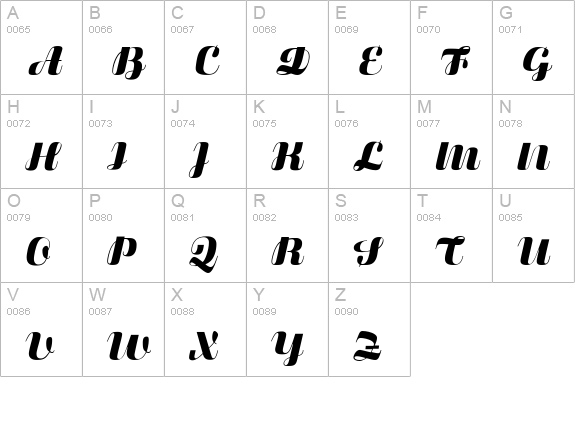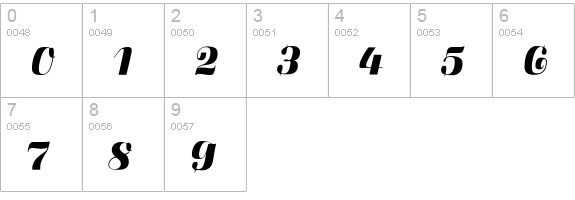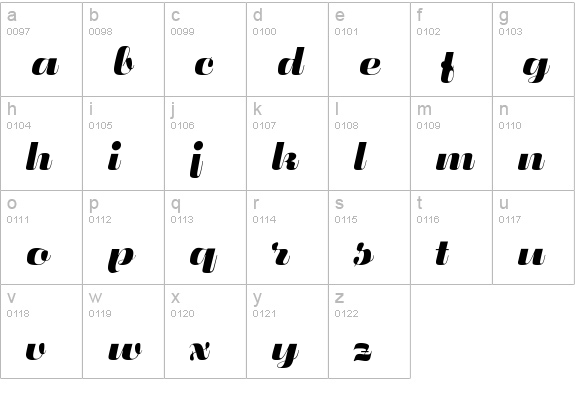
CgFluidumBd Font Details
CgFluidumBd is a stylish and modern font that exudes elegance and sophistication. With its fluid lines and bold design, this font is perfect for adding a touch of class to any project. Whether you're designing a logo, creating marketing materials, or crafting a website, CgFluidumBd is sure to make a statement. Best of all, this gorgeous font is completely free to download at FontsMarket.com. So go ahead and elevate your designs with CgFluidumBd today!